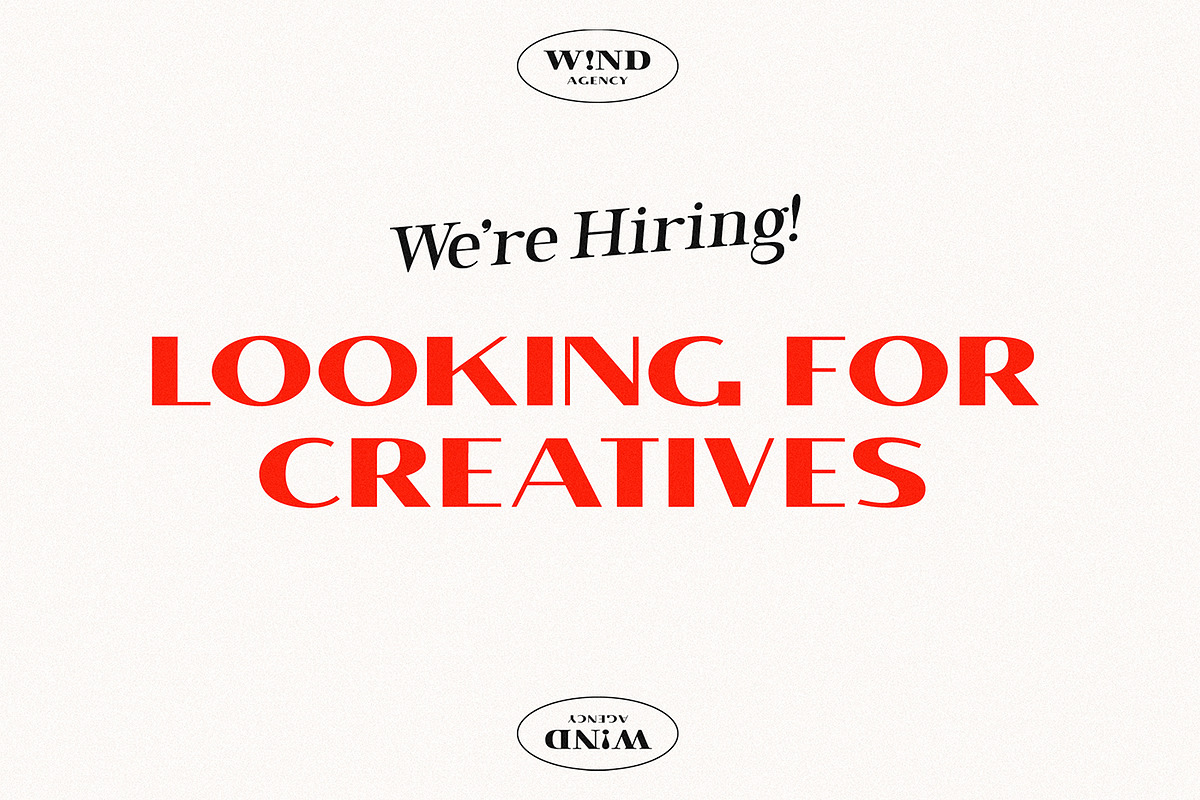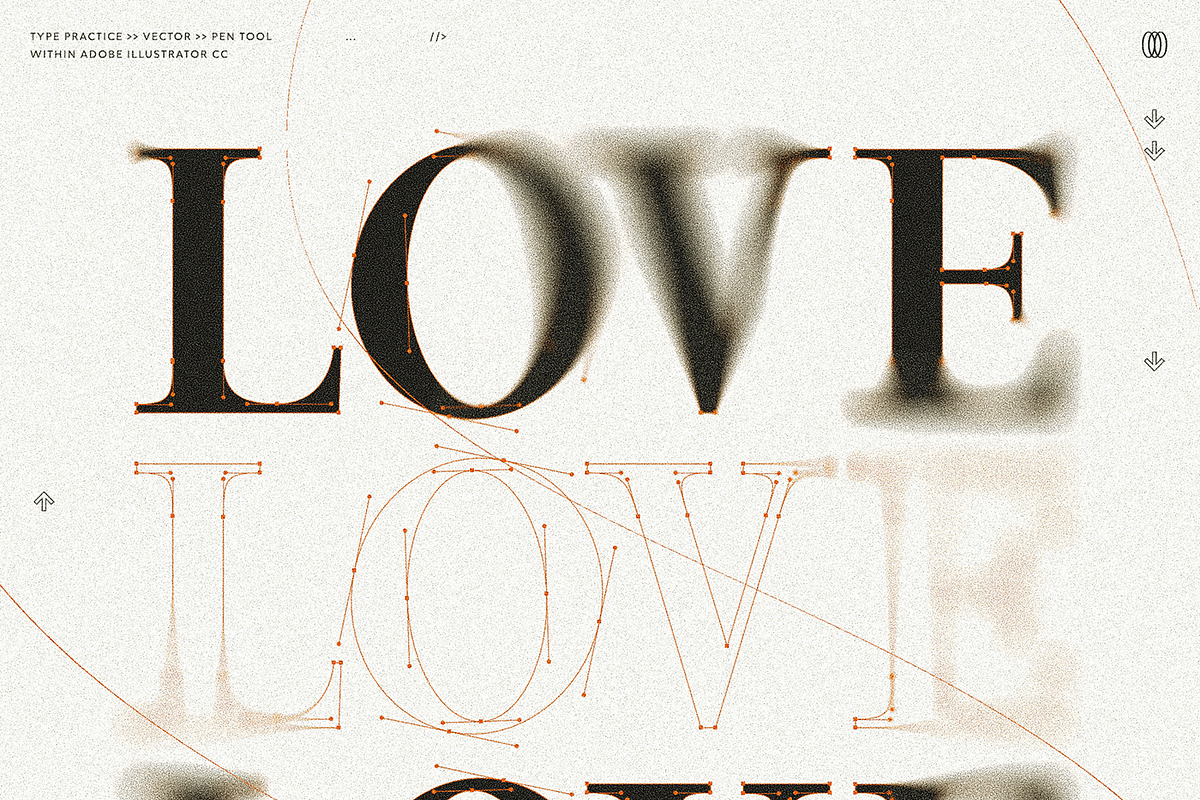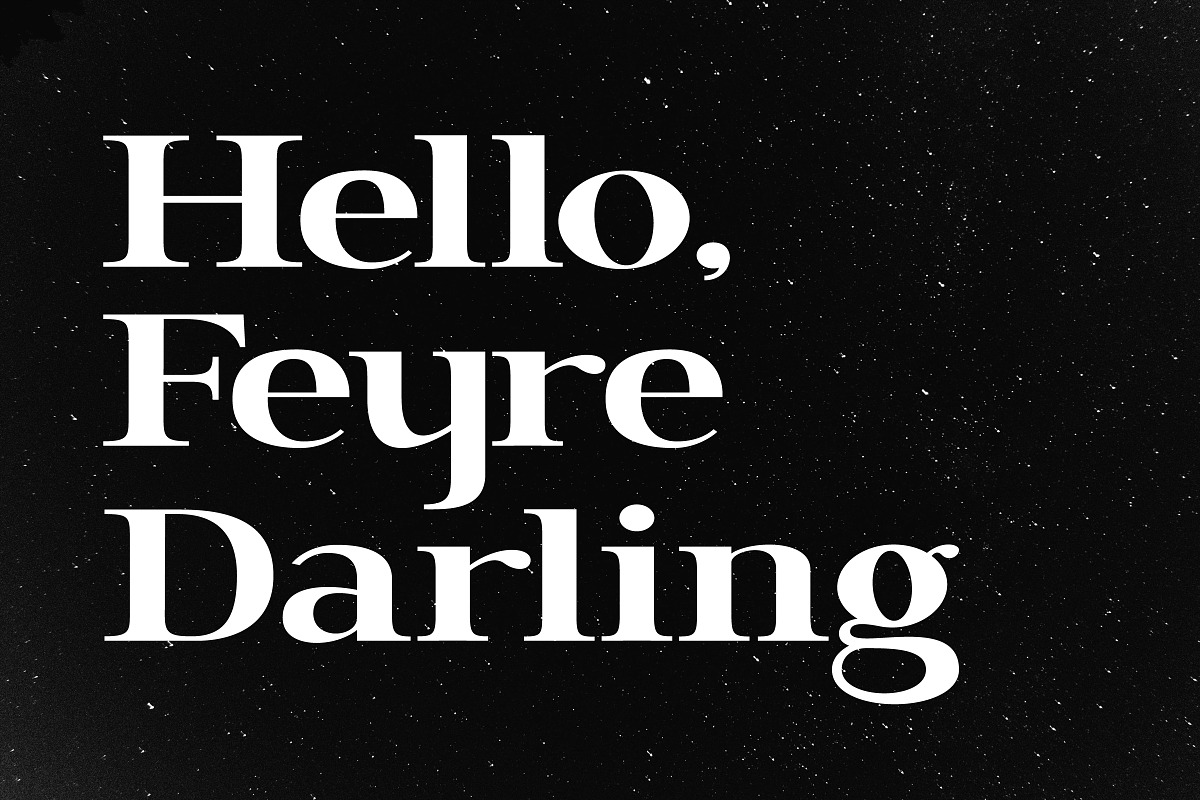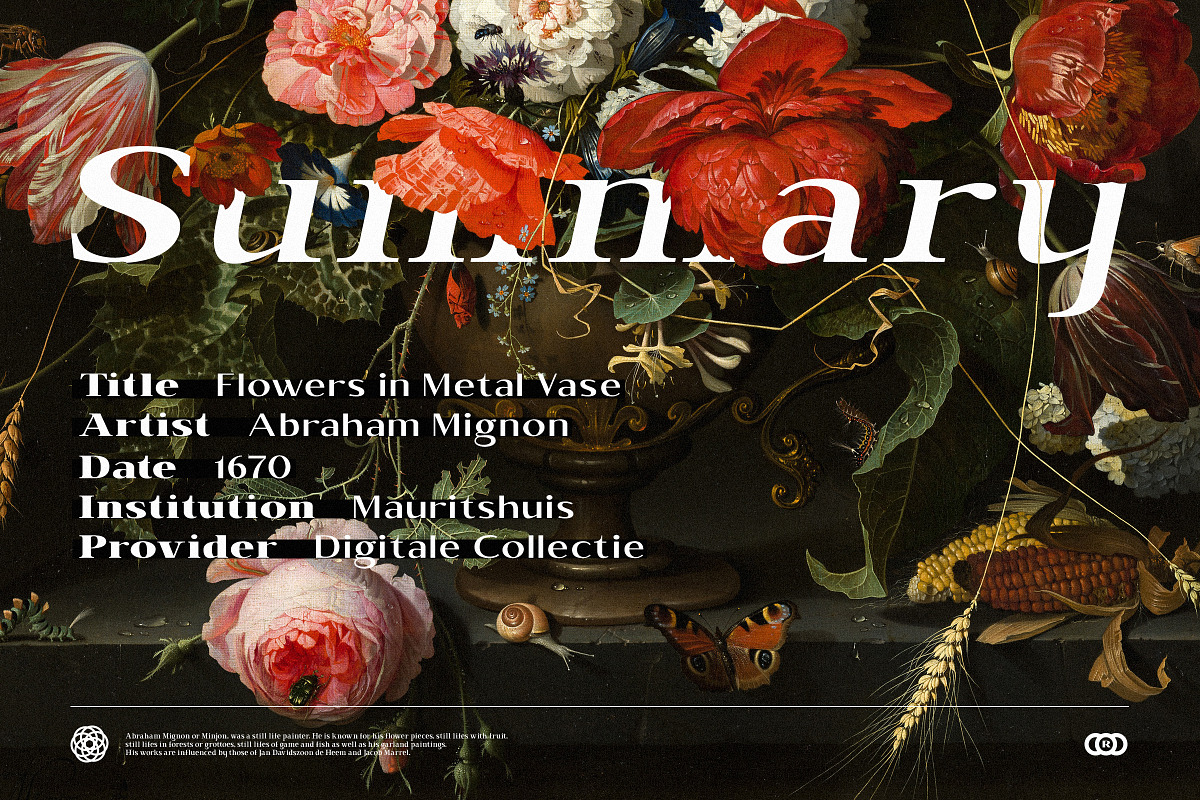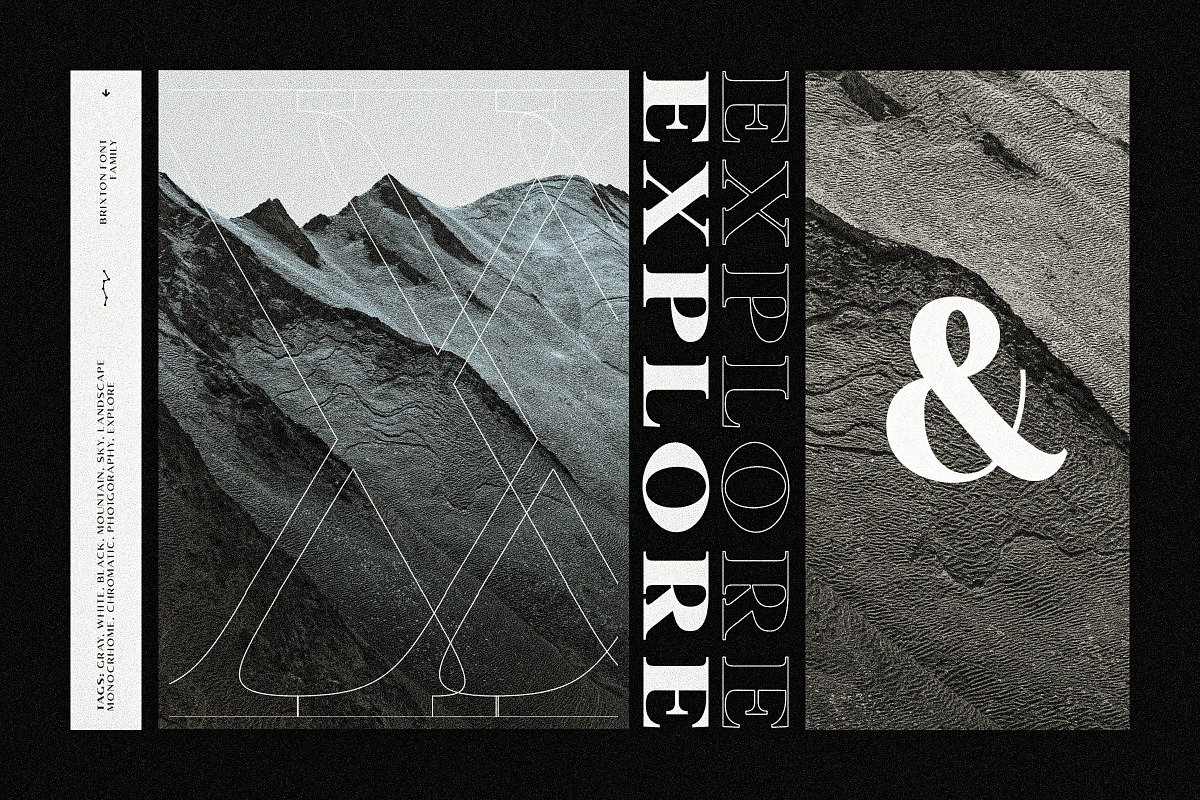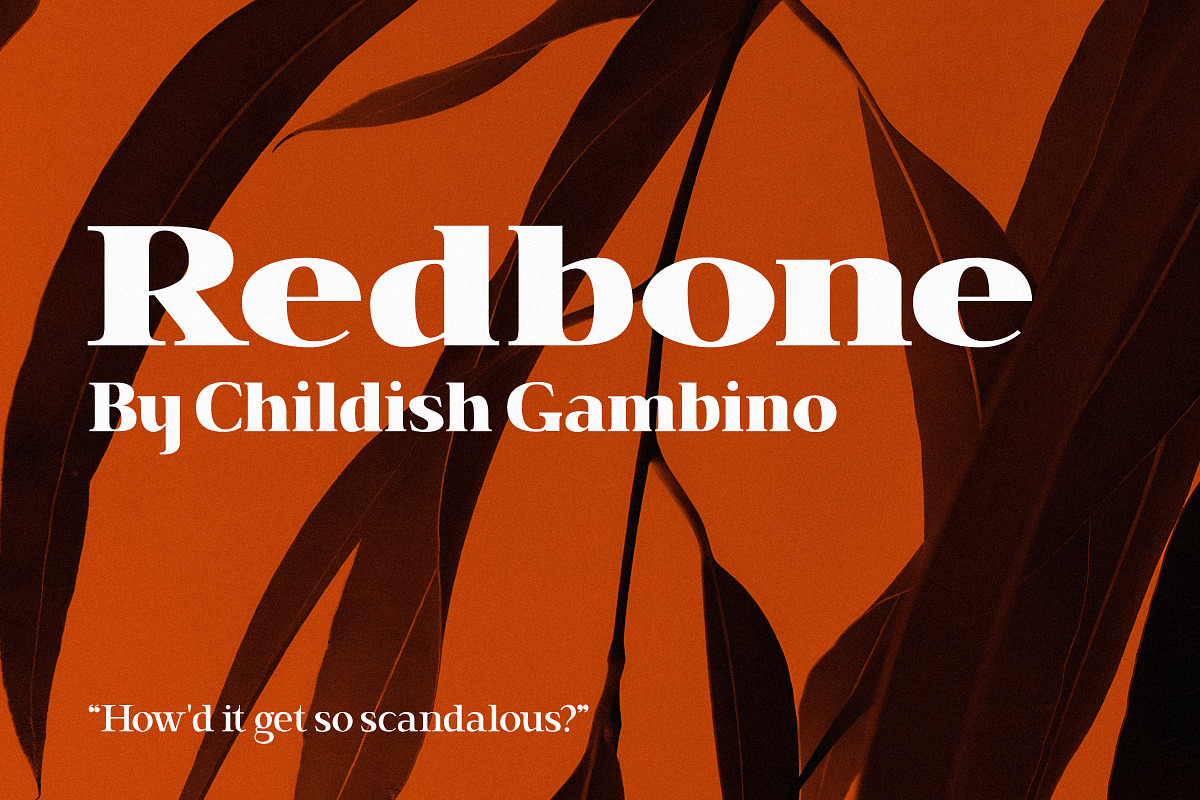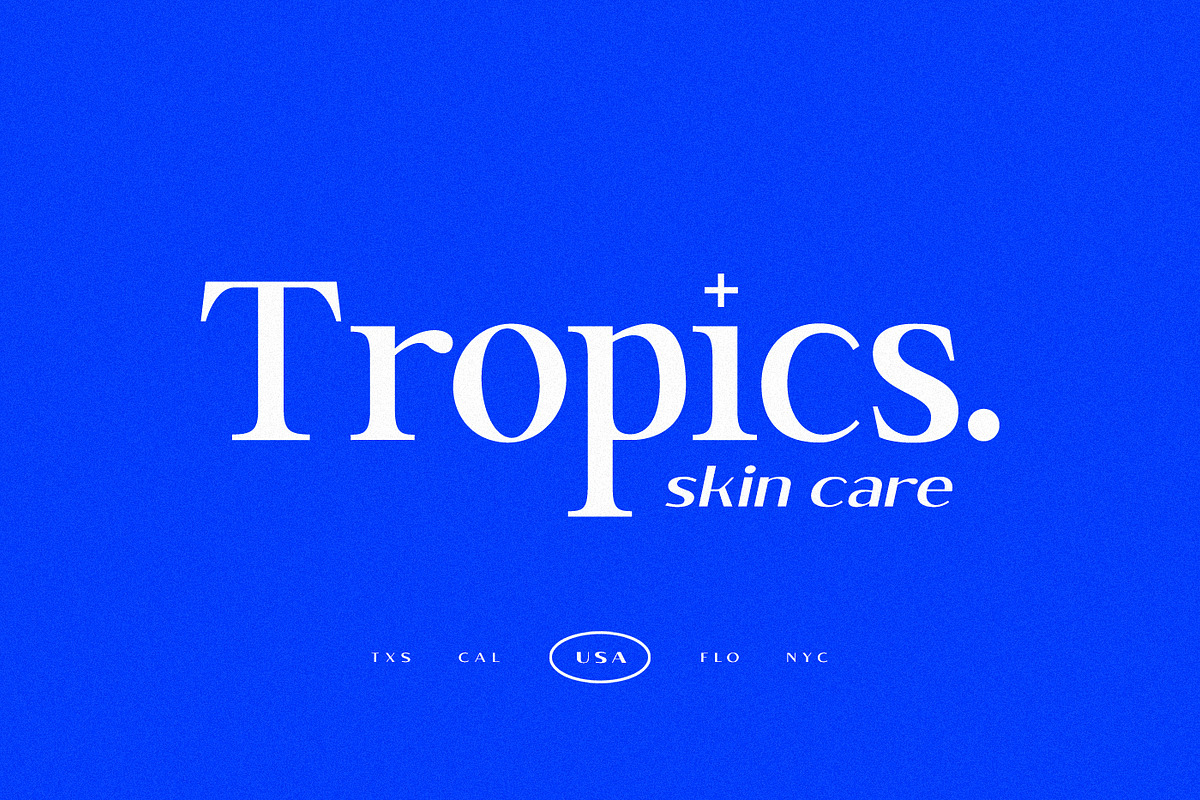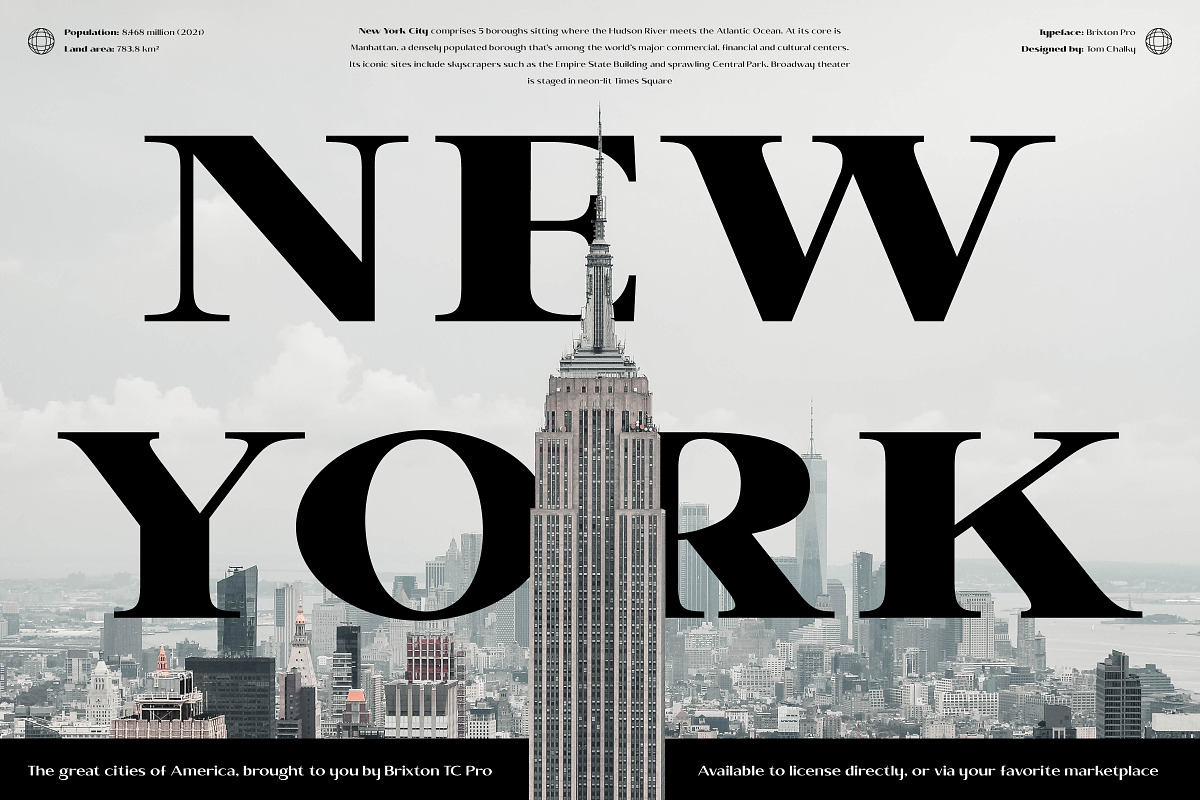
Brixton TC Pro Font collection
Introducing Brixton Pro – a versatile collection of 24 fonts, divided into 6 distinct styles and 4 varying weights. This premium collection is ideal for a wide range of design projects, particularly branding and print design. The design of these fonts is based on the highly popular and original Brixton family, making them a perfect upgrade to your library!
- Brixton (Light, Regular, Bold & Heavy)
- Brixton Oblique (Light, Regular, Bold & Heavy)
- Brixton Condensed (Light, Regular, Bold & Heavy)
- Brixton Condensed Oblique (Light, Regular, Bold & Heavy)
- Brixton Sans (Light, Regular, Bold & Heavy)
- Brixton Sans Oblique (Light, Regular, Bold & Heavy)